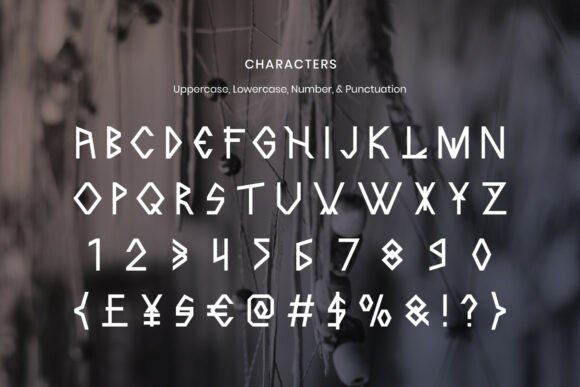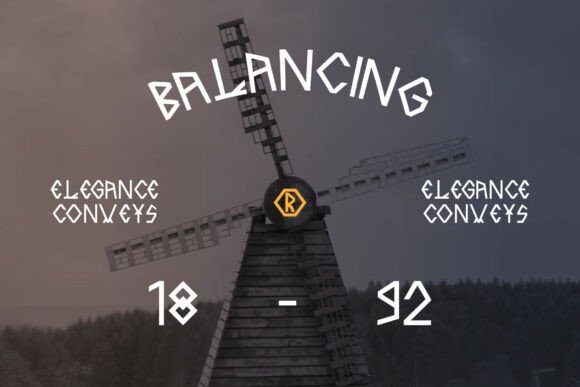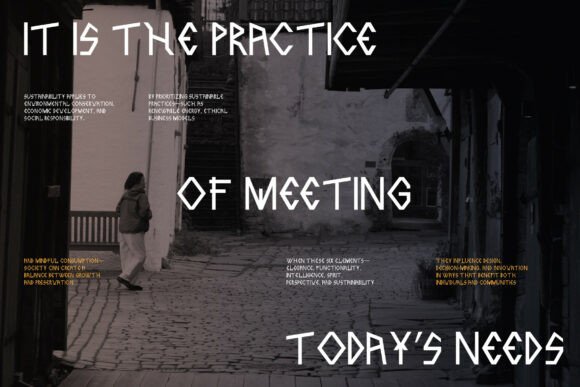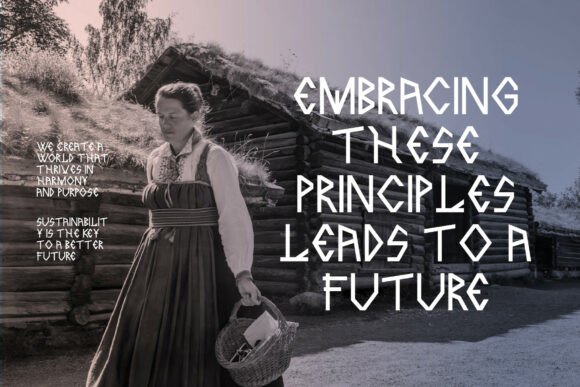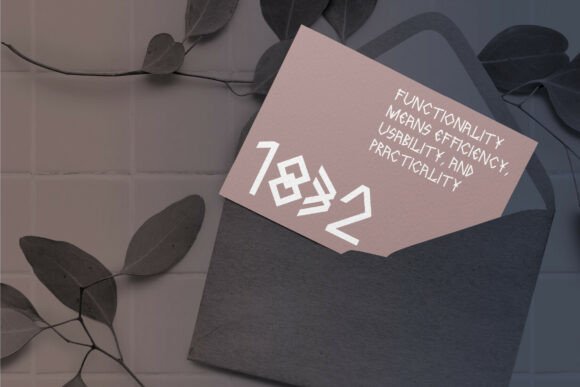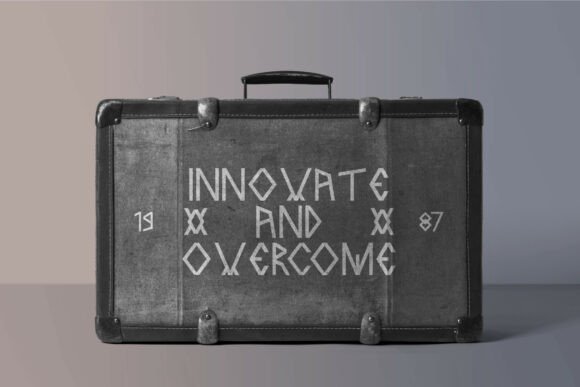
Introduction to Graurinko Font Font
Fonts play a crucial role in design, and the Graurinko Font font is a typeface that brings both character and versatility to any project. Whether you’re working on a branding project, a website, or a print design, the Graurinko Font font offers a unique style that can elevate your work.
Graurinko Nordic Scandinavian Font is a creative Nordic-Scandinavian display font featuring modern geometry and a minimalist, futuristic style.
Its sharp angles and structured forms make it ideal for designs that demand attention and character Inspired by Nordic aesthetics and metro city life, this typeface is perfect for capturing a sense of solitude, motion, and modern sophistication.
Key Features of Graurinko Font Font
Why Choose Graurinko Font Font?
The Graurinko Font font is more than just a typeface – it’s a design tool that helps you communicate your message with style and clarity. Its unique character set and versatile design make it suitable for a wide range of applications, from elegant invitations to bold headlines.
With its carefully crafted letterforms and balanced proportions, the Graurinko Font font ensures readability and visual appeal across all mediums.
What makes Graurinko Font font special?
The Graurinko Font font stands out with its unique design, exceptional readability, and versatility across various design applications.